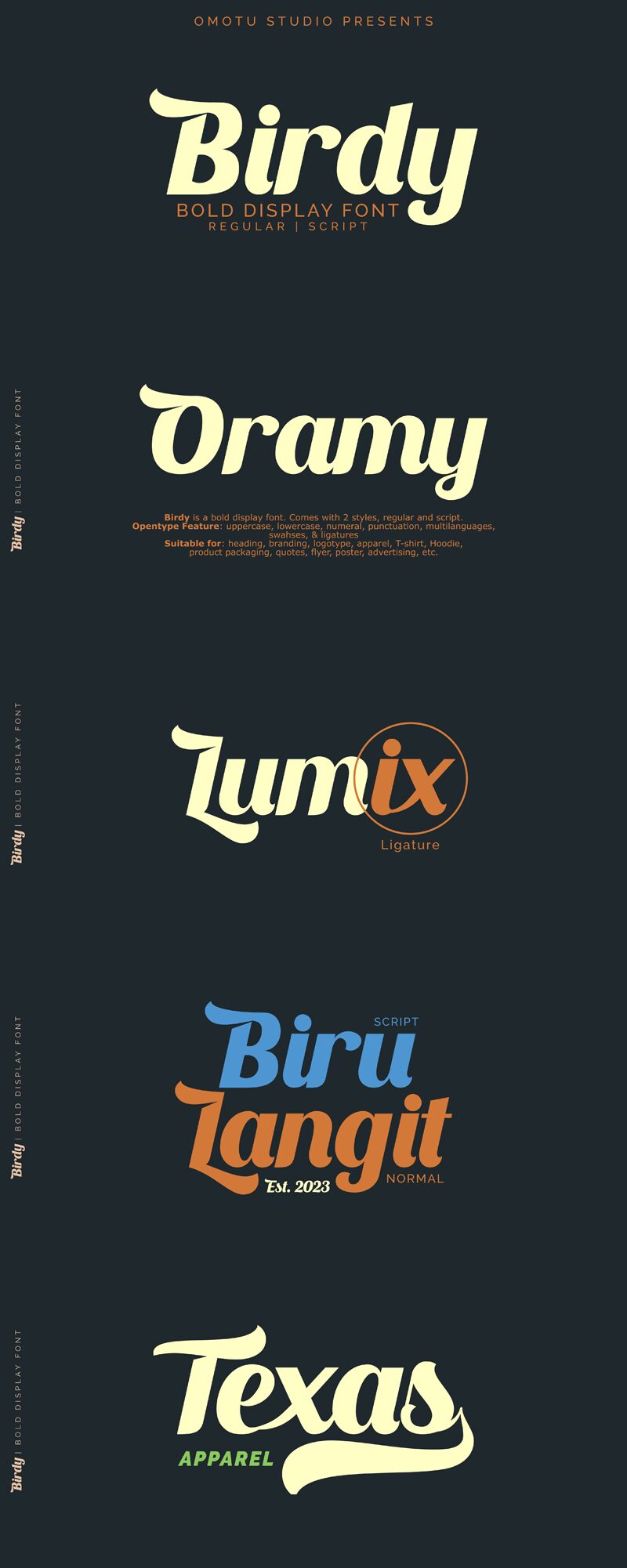
Birdy
Birdy font, designed by Omotu Studio, is a retro-inspired typeface with expressive, smooth curves that radiate casual elegance. It seamlessly blends modern and vintage elements for a unique visual appeal.
This free font is ideal for logo designs, branding projects, posters, social media graphics, packaging labels, fashion magazines, signage projects, wedding invitations, product designs and YouTube thumbnails.